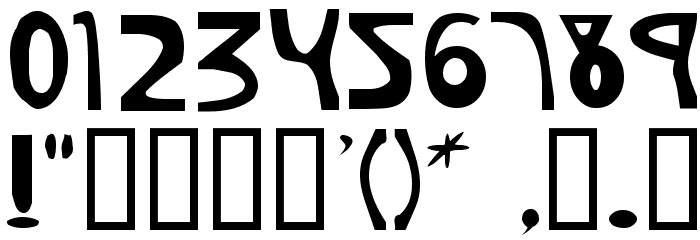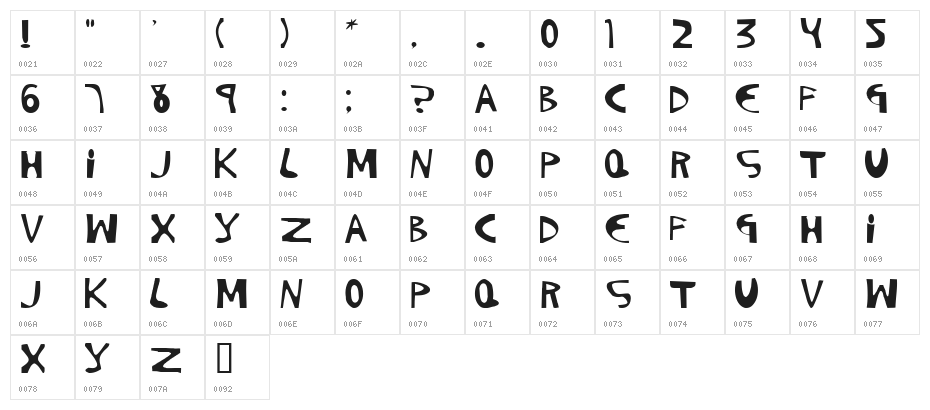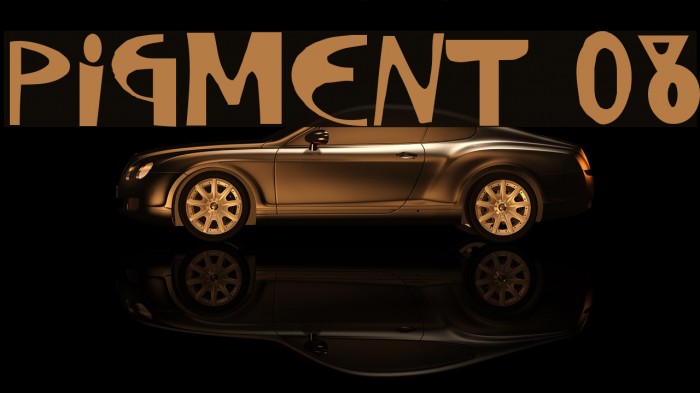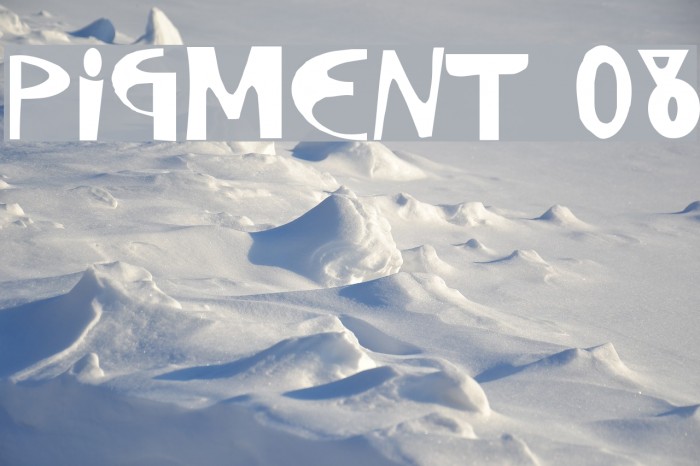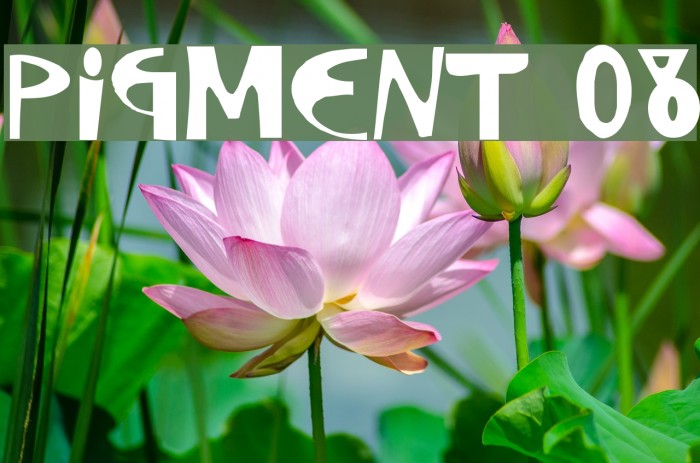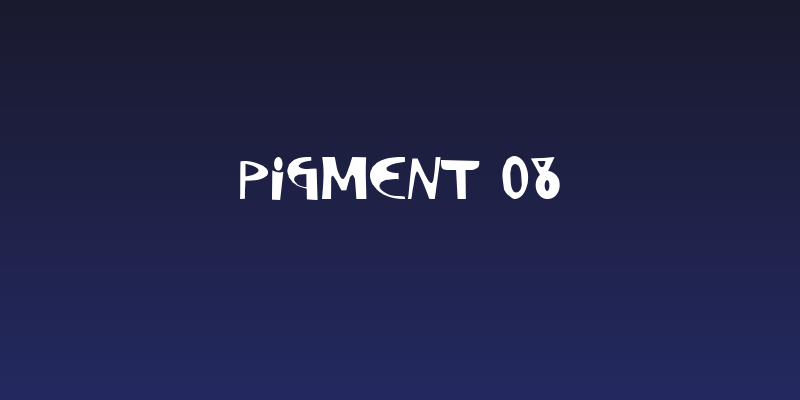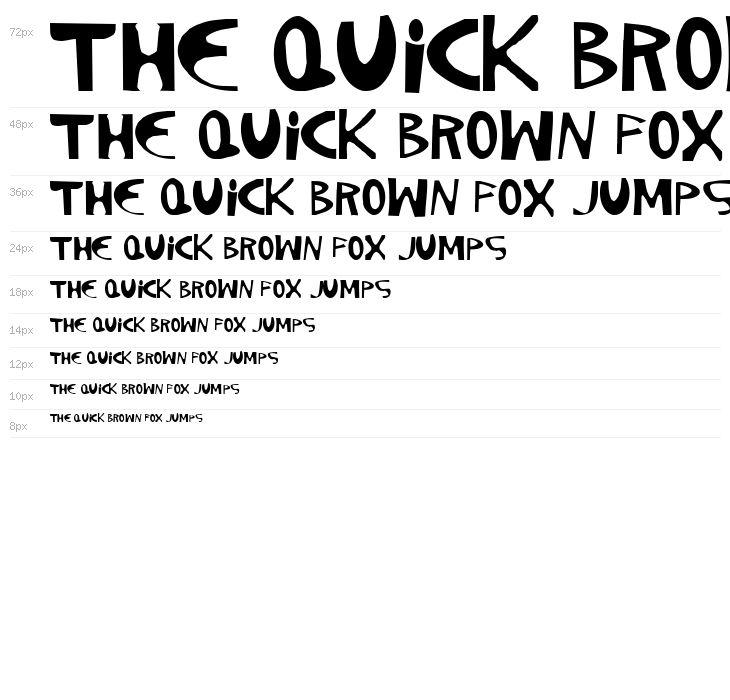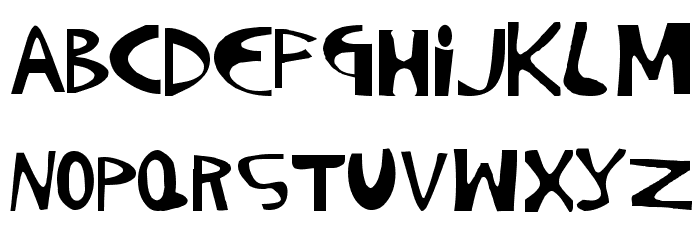
Pigment 08 Font
Pigment 08 Description
This font features a bold and playful design with a strong emphasis on geometric shapes and asymmetry. The uppercase letters have a unique, artistic flair with varying stroke widths that create a dynamic and eye-catching appearance. The lowercase letters maintain this playful style, offering a cohesive look across both cases. Numbers are equally bold and distinctive, with a quirky, modern twist. Special characters are designed to match the overall aesthetic, ensuring consistency throughout. This font's boldness and unique style make it ideal for projects that require a standout, creative typeface.
| Proposed Projects | Ideal for creative projects such as posters, logos, and branding materials that require a bold and artistic touch. |